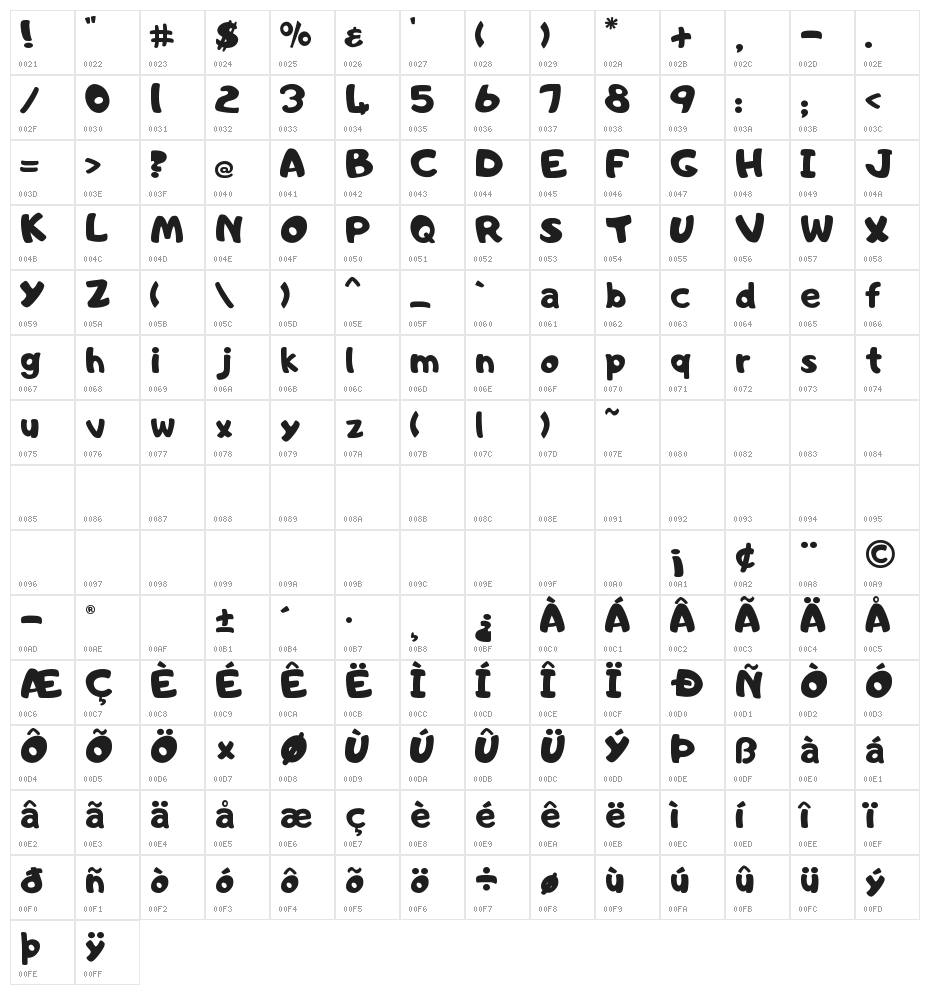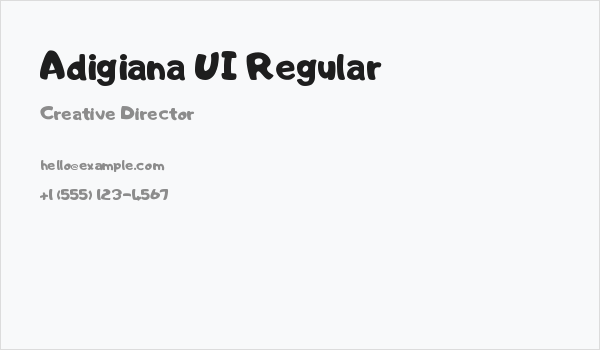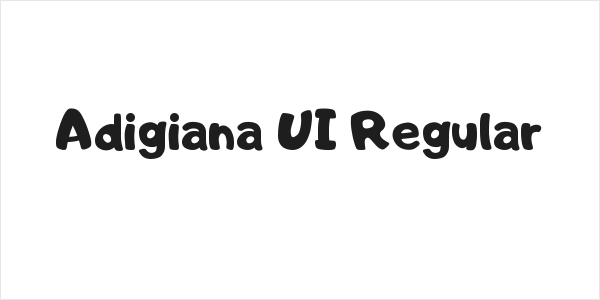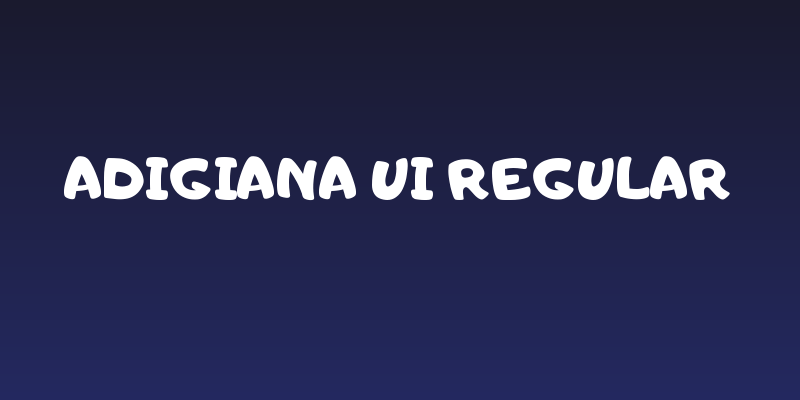
Adigiana UI Regular Font
Adigiana UI Regular Description
This playful and bold font features rounded, thick strokes that give it a friendly and approachable appearance. The characters are slightly irregular, adding a whimsical touch that makes it stand out. Its boldness ensures high readability, while the rounded edges soften its overall look, making it suitable for informal and fun designs. The font maintains a consistent weight throughout, with a slight variation in stroke width that adds to its charm. The spacing between characters is normal, allowing for clear legibility without feeling cramped. This font is ideal for projects that require a lively and engaging typeface.
Overall StylePlayful
Proposed ProjectsIdeal for children's books, playful branding, posters, and social media graphics.